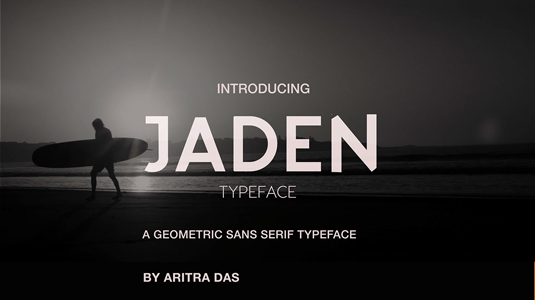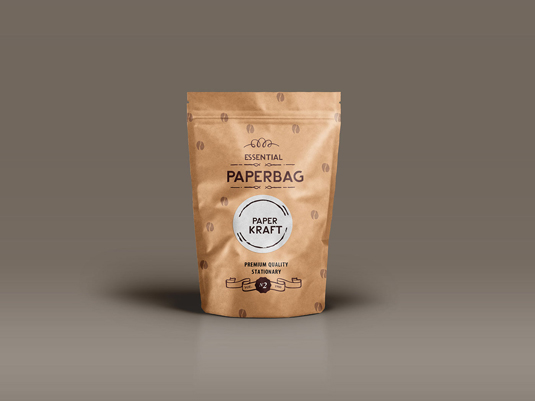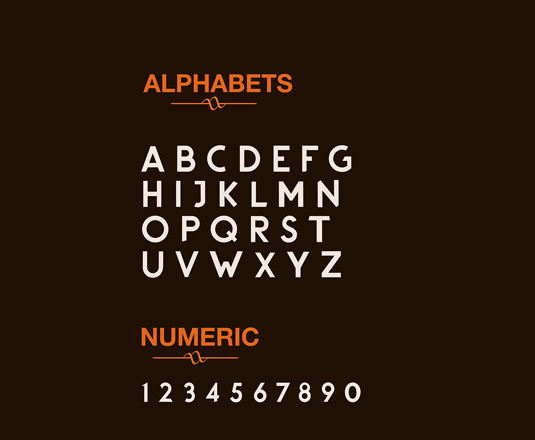
Font of the day: Jaden
Every day we showcase the best fonts on the web. Today it's Jaden by Aritra Das.
Jaden by Aritra Das
Graphic designer Aritra Das is the man behind today's typeface of choice, Jaden. A geometric sans serif, Jaden is perfectly suited to headlines, logos, stationery and much more.